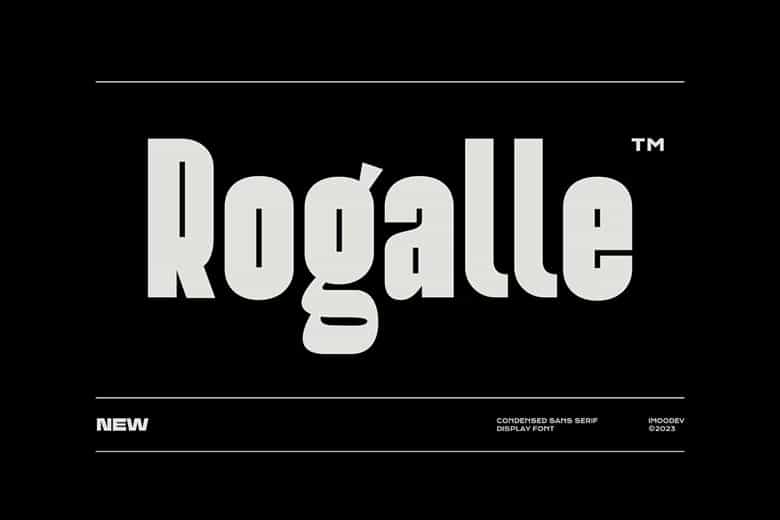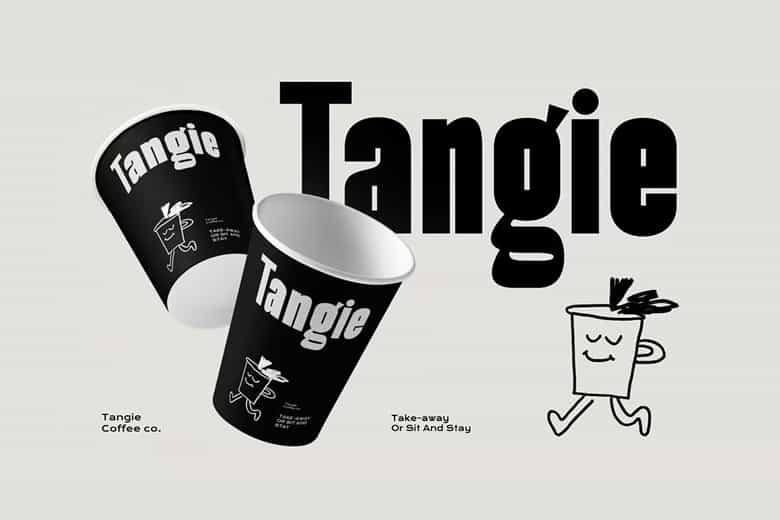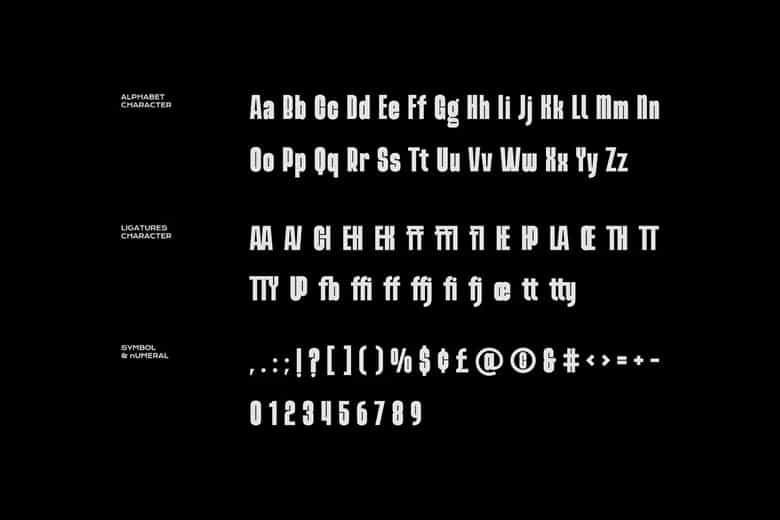
Rogalle Sans Display Font is a sleek, slightly curvilinear design that can bring charm and elegance into every letter and, therefore, into your project. A font that can be used in both capital and small capital letters and can be used in a variety of projects including the use of display fonts for titles, logos, invitation, branding, book cover designs, magazine layout, card designs, packaging, product mockup, on mugs, posters, labels, editorials, art deco styles and any type of advertising.